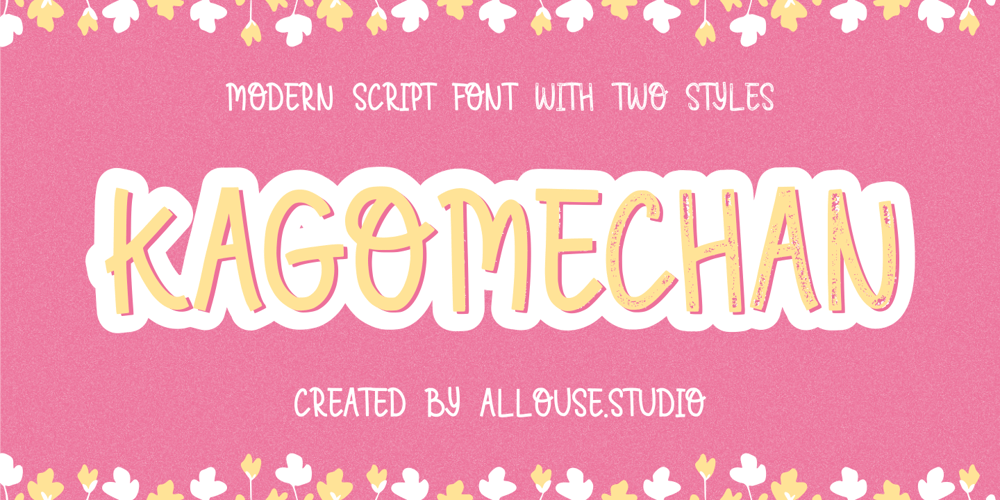
Kagomechan
Kagomechan font
Kagomechan Font Family was designed by Fachrizal Yusuf and published by Allouse Studio. Kagomechan contains 2 styles and family package options. Proudly Presenting, Kagomechan a Modern Script Font With Two Styles Regular and Textured which will you give an a stamp effect.Kagomechan come along with multi-Lingual Support to fulfill your need.We highly recommend using a program that supports OpenType features and Glyphs panels like many of Adobe apps and Corel Draw, so you can see and access all Glyph variations.Kagomechan is perfect for any title, logo, product packaging, branding project, megazine, social media, wedding, or just used to express words above the background.Enjoy the font, feel free to comment or feedback, send me PM or email. Thank You!